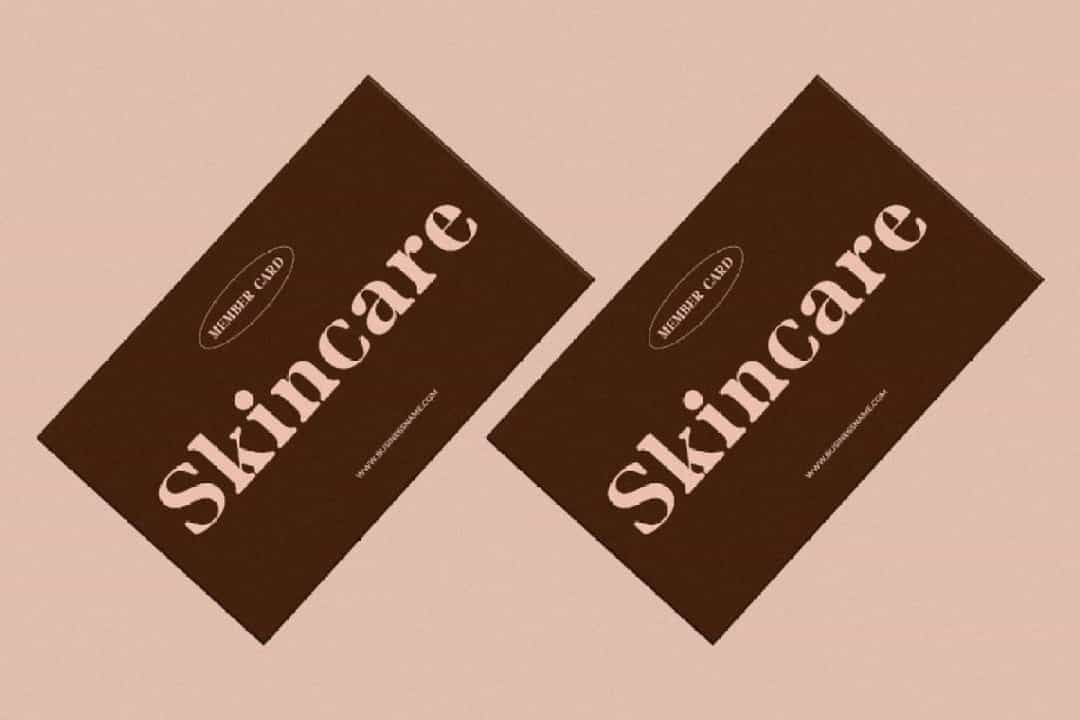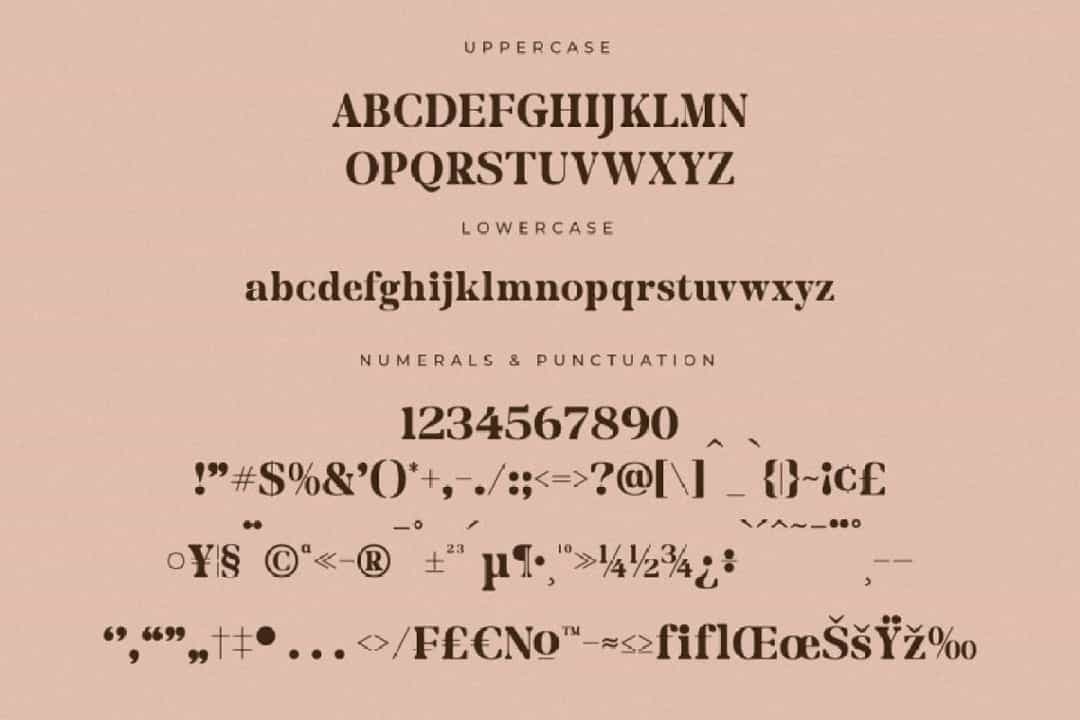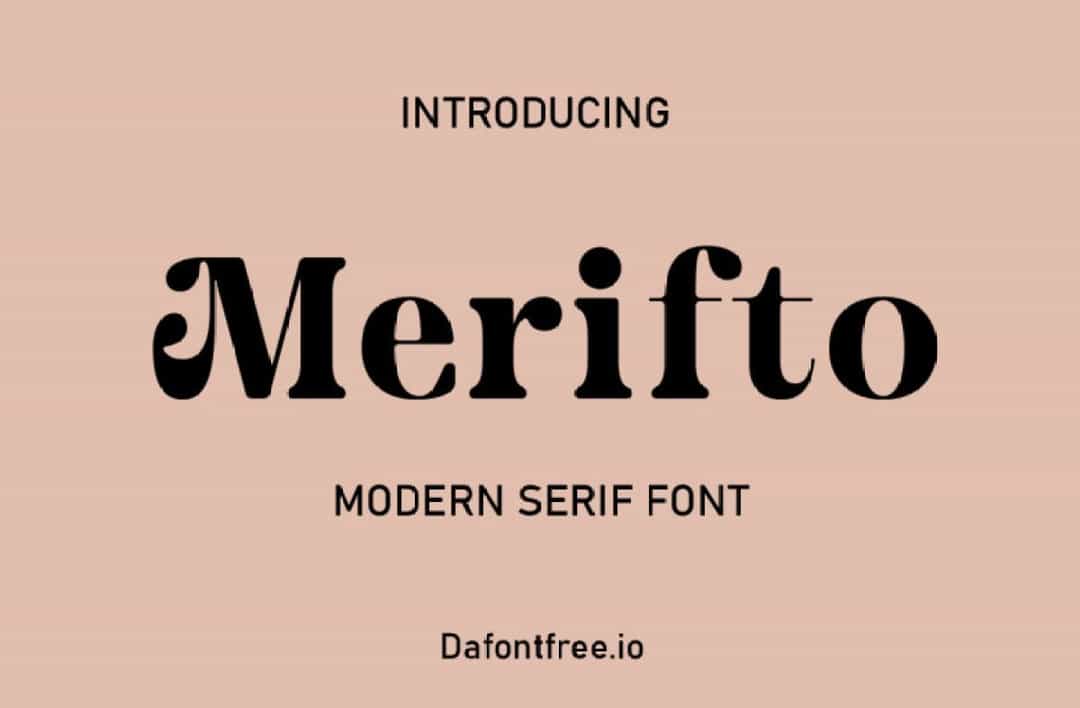
Merifto is a new modern serif font that has own unique style & modern look. This typeface is perfect for an elegant & luxury logo, book or movie title design, fashion brand, magazine, clothes, lettering, quotes, and so much more.